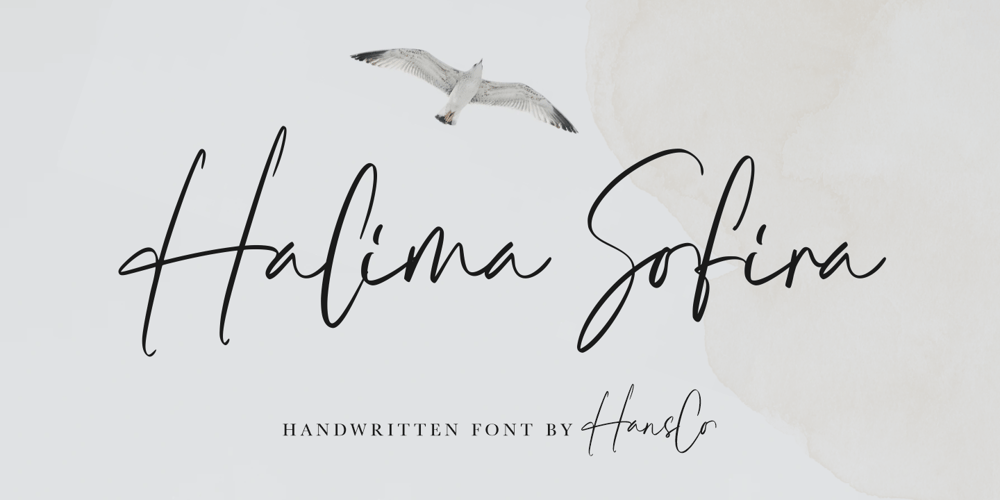
Halima Sofira Font Family was designed by Burhan Afif and published by HansCo. Halima Sofira contains 1 styles and family package options. Halima Sofira is a Luxury Handwriten that is luxurious in a casual and distinctive style that is perfect for your branding design, and will also be very beautiful in your wedding invitations and business cards and especially for your brand name logotype. This one should make your designs instantly professional and amazingly! Be a perfect professional in a minute and start creating with this font today!Enjoy